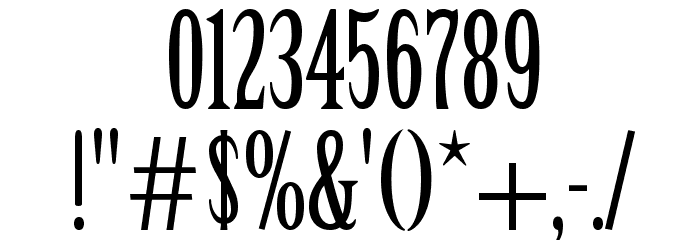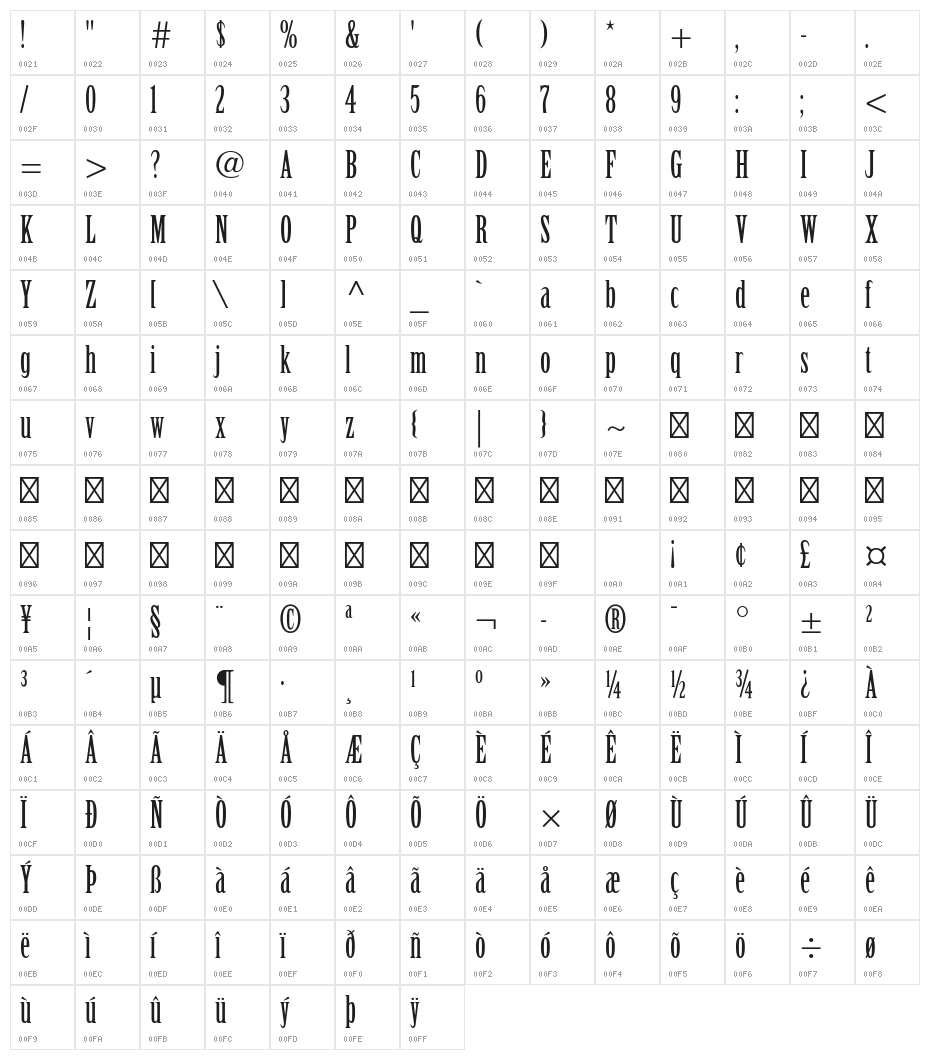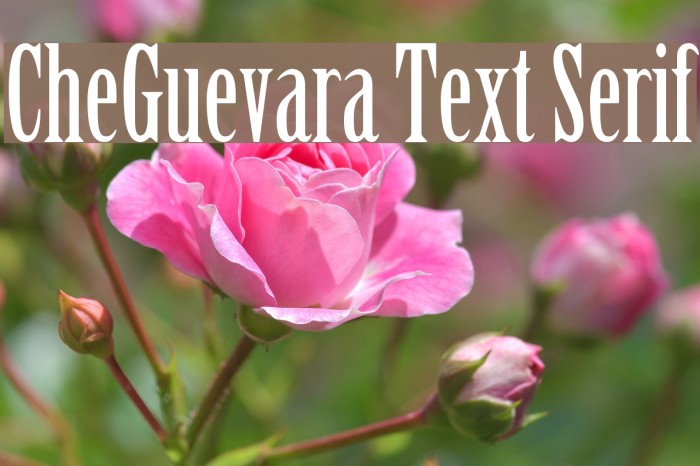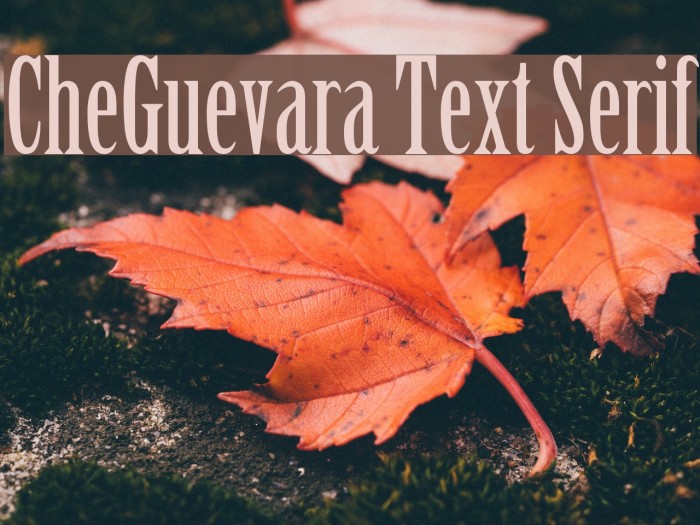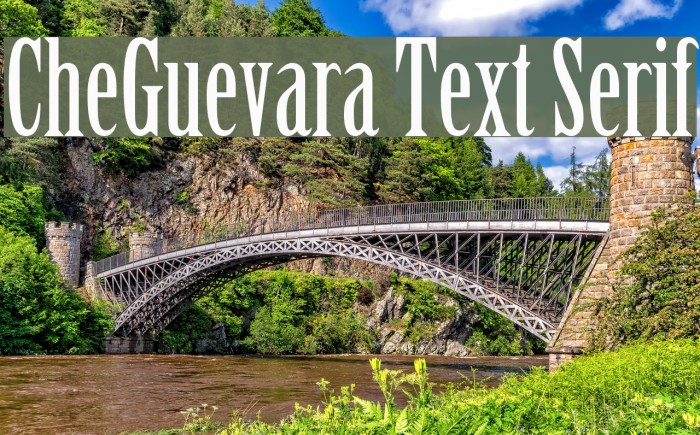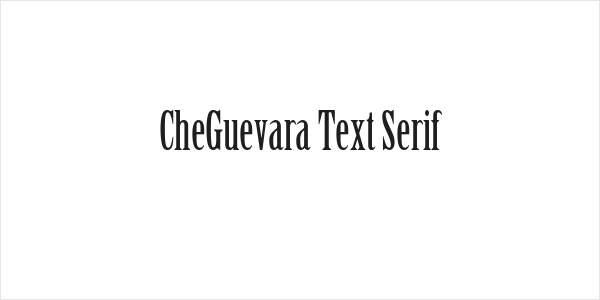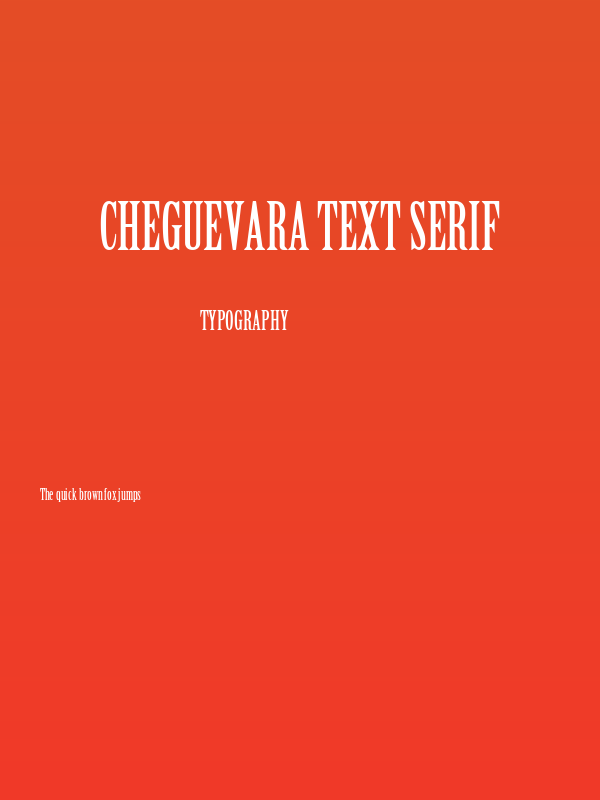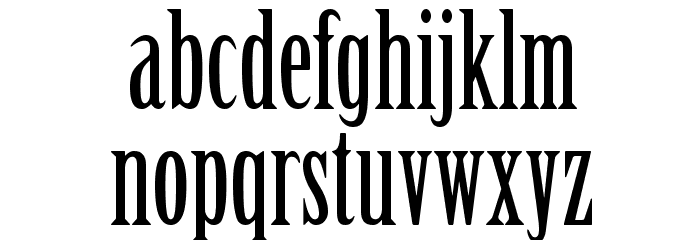
CheGuevara Text Serif Font
CheGuevara Text Serif Description
This font features a bold and striking serif style, characterized by its strong vertical lines and pronounced serifs. The uppercase letters are tall and commanding, while the lowercase letters maintain a consistent and harmonious flow. The numerals are clear and easily distinguishable, making them suitable for various applications. Special characters are well-defined, adding versatility to the font's usage. The overall design exudes a classic and authoritative feel, making it ideal for projects that require a touch of elegance and strength.
| Proposed Projects | Ideal for book covers, headlines, posters, and branding materials that require a classic and authoritative look. |